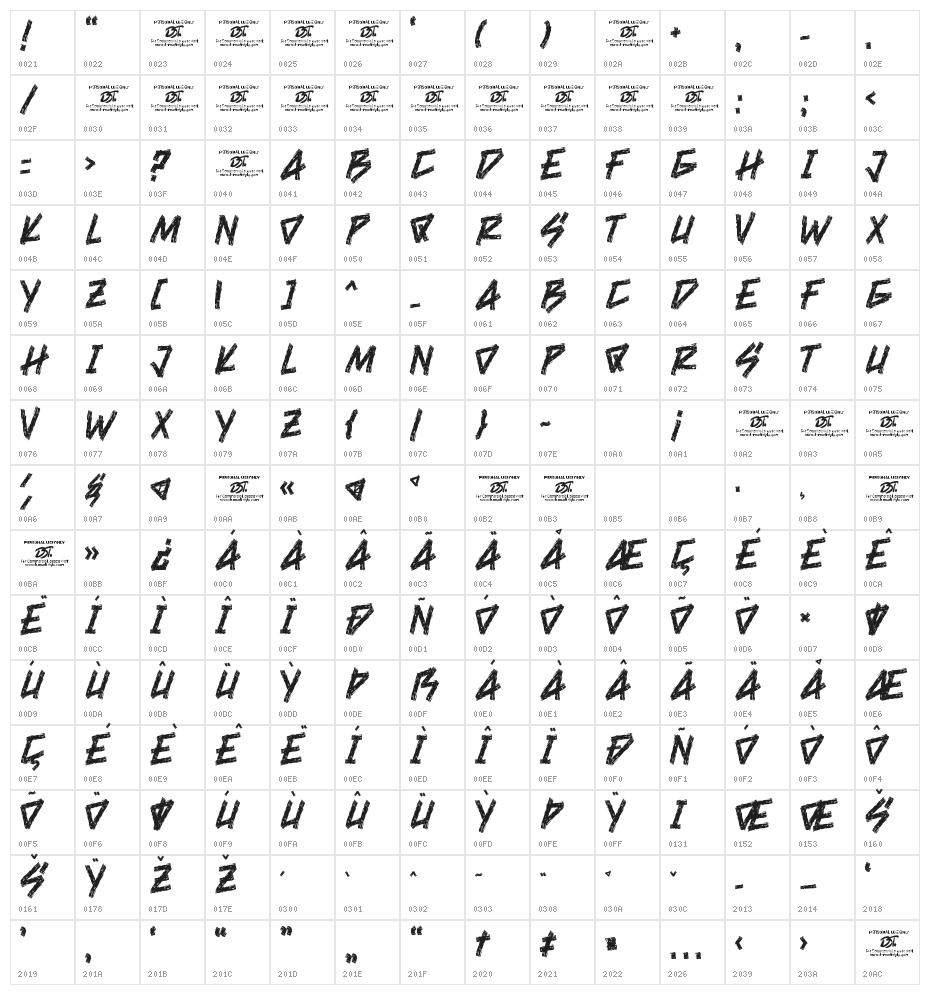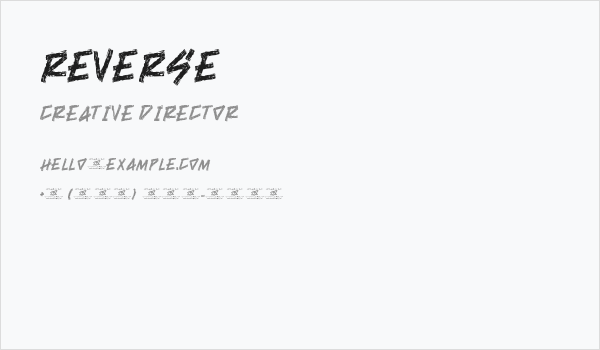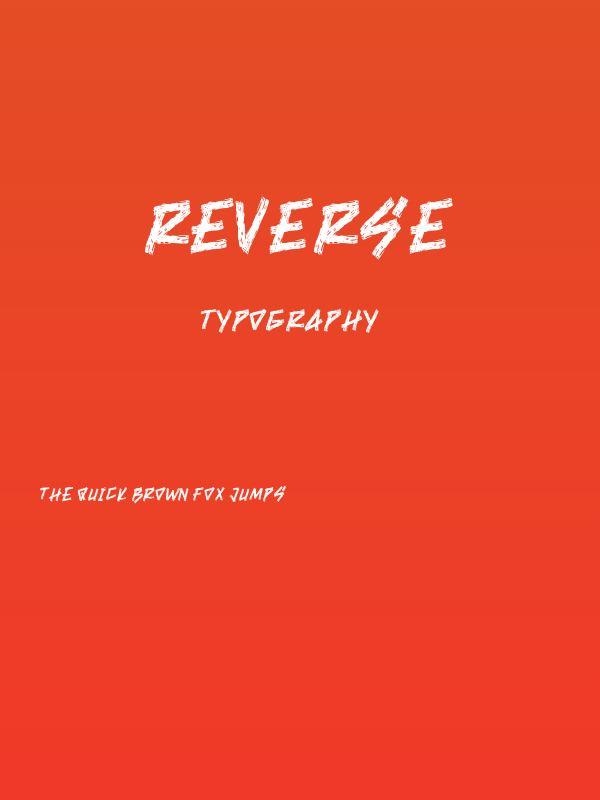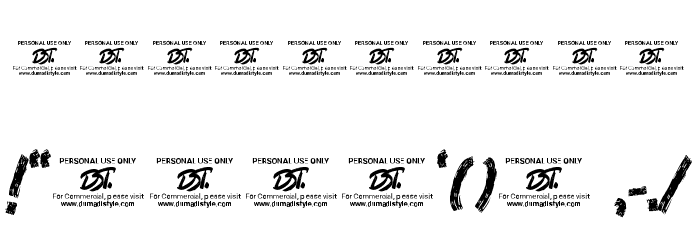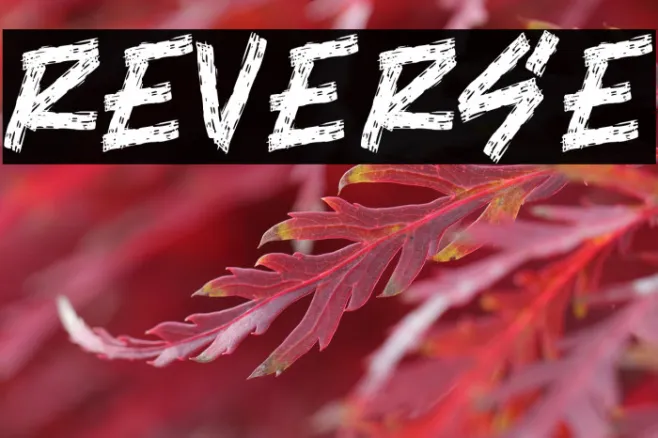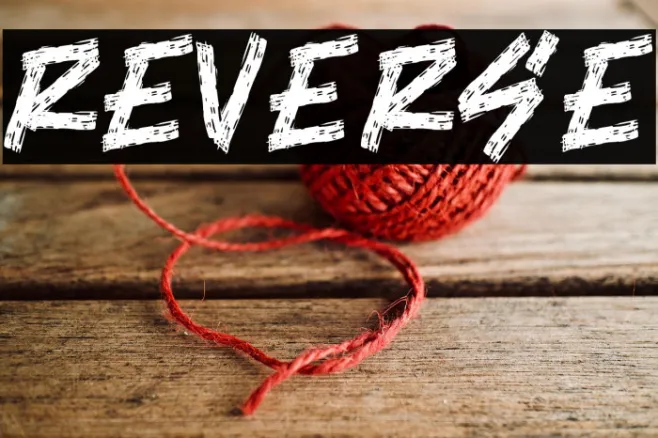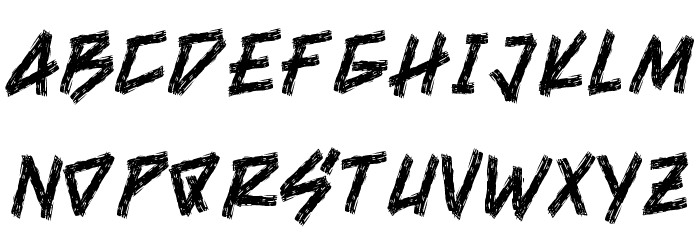
Reverse Font
Reverse Description
This font features a bold and dynamic brushstroke style, characterized by its rough and textured appearance. The letters are crafted with a sense of movement and energy, giving them a hand-drawn feel. Each character is unique, with varying stroke thicknesses that create a sense of depth and dimension. The uppercase and lowercase letters maintain a consistent style, while the numbers and special characters complement the overall aesthetic. This font is perfect for projects that require a bold and artistic touch, such as posters, album covers, or branding materials.
| Overall Style | Artistic, Dynamic |
| Use Case | Headlines, Logos, Artistic projects |
| Proposed Projects | Ideal for posters, album covers, branding, and artistic projects. |